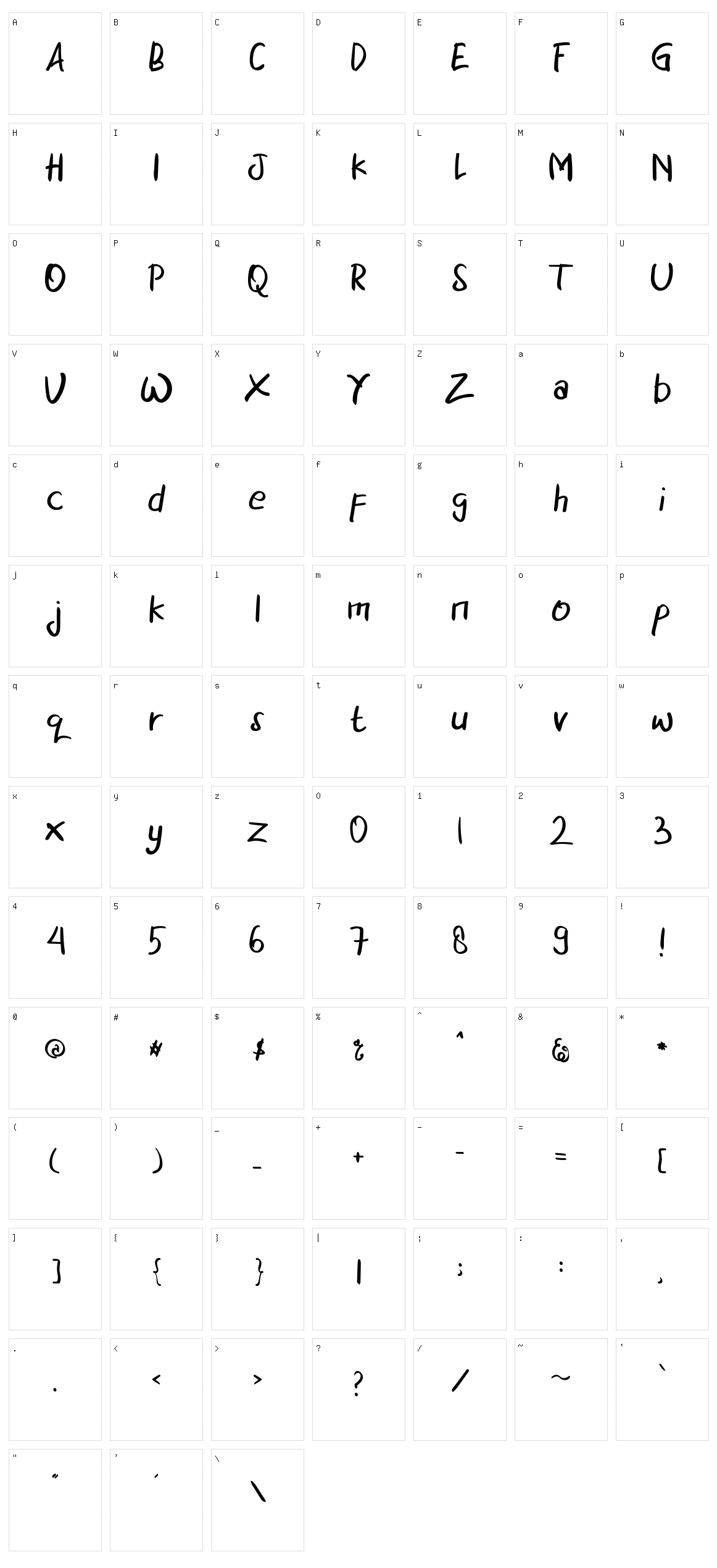
The free font Cherry Blossom is carefully designed by Graph Arts, showcasing a thoughtful balance of creativity and usability and falls under the Script font style. When you download the ZIP file, it contains only 26.78 KB of font files, making it lightweight and quick to download. Please review the license details below to understand permitted usage and distribution rights. If license information is not available, we recommend using this font for personal projects only or contacting the author directly for commercial usage permissions.